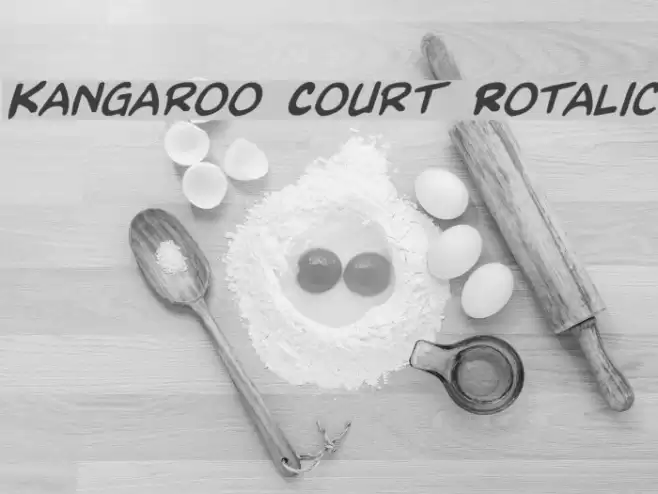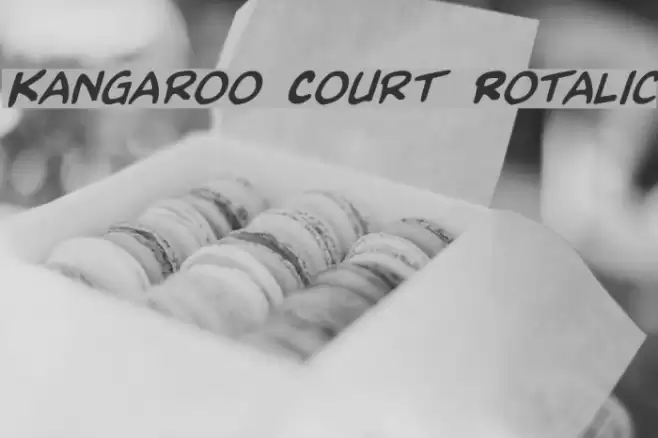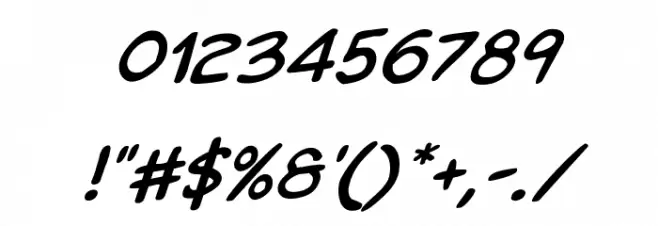
Kangaroo Court Rotalic Font
Kangaroo Court Rotalic Description
This font features a dynamic and energetic style, characterized by its bold, italicized letters that convey a sense of movement and flair. The uppercase and lowercase letters are consistent in their slanted orientation, giving the text a cohesive and flowing appearance. The numbers and special characters maintain the same stylistic approach, ensuring uniformity across all elements. The strokes are thick and rounded, contributing to a friendly and approachable aesthetic. This font is well-suited for projects that require a playful yet assertive tone.
A bold, italicized font with a dynamic and energetic style from Uncategorized fonts.
- Proposed Projects: Ideal for branding, posters, and advertising materials that need a playful and assertive look.